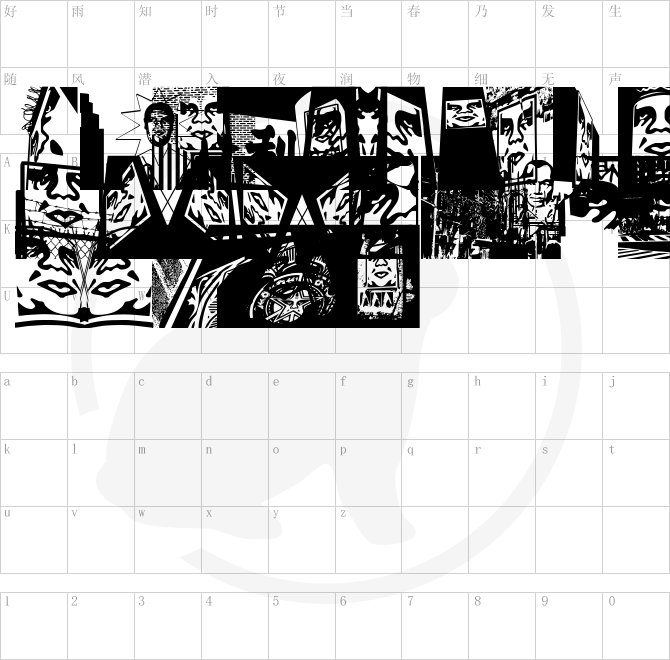
- Font Name:ObeyTownAlt
ObeyTownAlt.ttf is a very beautiful artistic font, ObeyTownAlt.ttf is widely used in the design and printing of various books and pictures,ObeyTownAlt.ttf has a strong visual impact,ObeyTownAlt.ttf is a commonly used font in newspapers, magazines and books, and is used in posters, e-commerce Poster design, store design, logo design, font design and other fields.ObeyTownAlt.